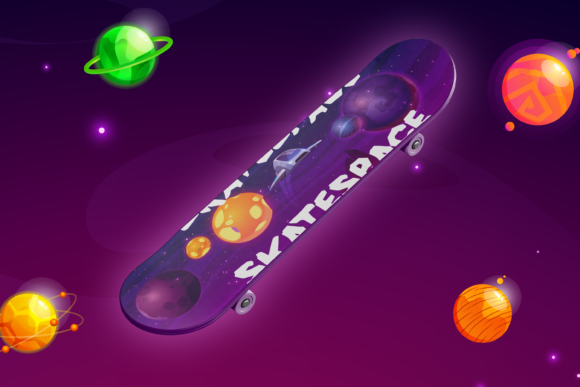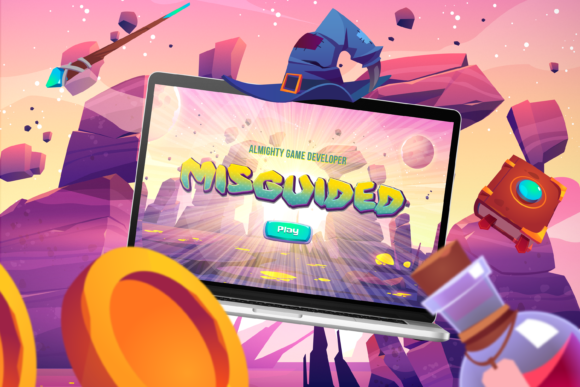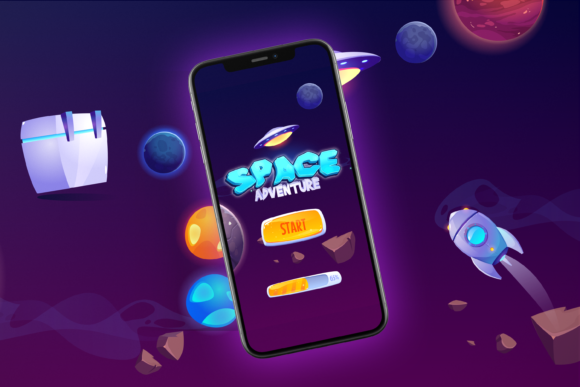
Introduction to Rockgan Font
Rockgan is a fresh, unique display font with a carefree attitude and a playful edge.
This font is perfect for logos, posters, web design, social media posts and much more .
Rockgan Font offers exceptional quality and versatility, making it a valuable addition to your design toolkit. Whether you’re creating for personal projects or commercial use, Rockgan Font delivers professional results.